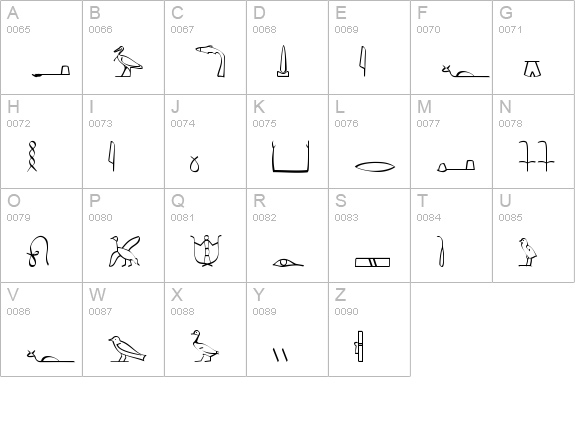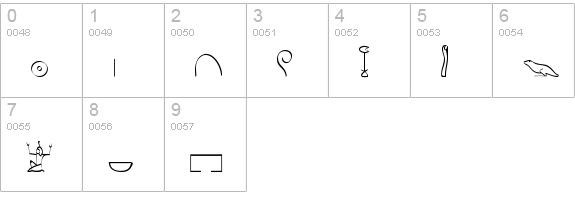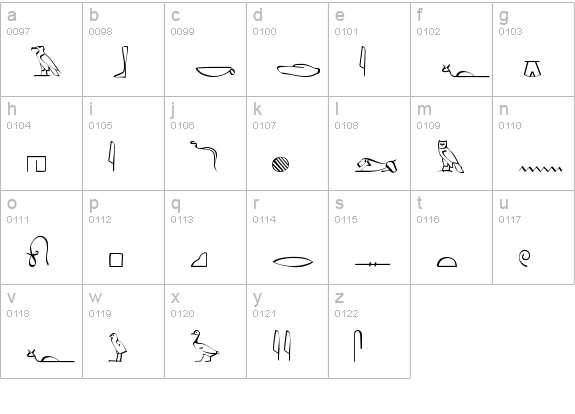
HieroglyphicPhonetic Font Details
The HieroglyphicPhonetic font is a unique and visually stunning typeface that combines the artistry of ancient hieroglyphs with modern phonetic symbols. This font is not only aesthetically pleasing but also highly functional, making it perfect for a wide range of design projects. With its intricate details and historical charm, HieroglyphicPhonetic font adds a touch of mystery and sophistication to any text or design. Best of all, HieroglyphicPhonetic font is available for free download at FontsMarket.com, making it accessible to all designers, artists, and enthusiasts. Whether you are working on a historical project, designing a logo, or simply looking to add a unique touch to your creations, HieroglyphicPhonetic font is the perfect choice. Download it now and unleash your creativity with this captivating and versatile typeface.